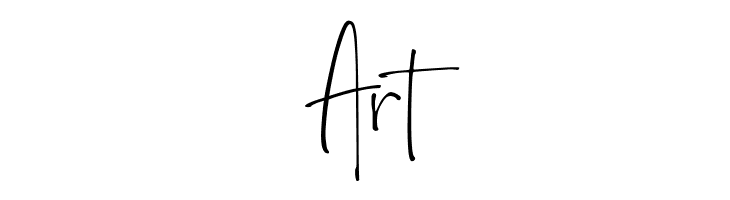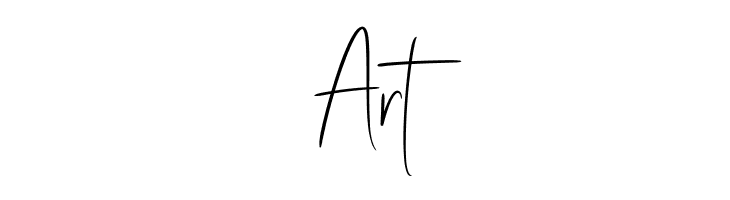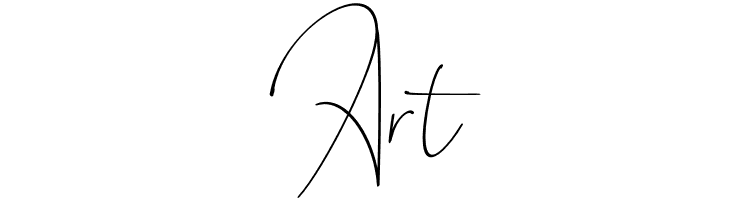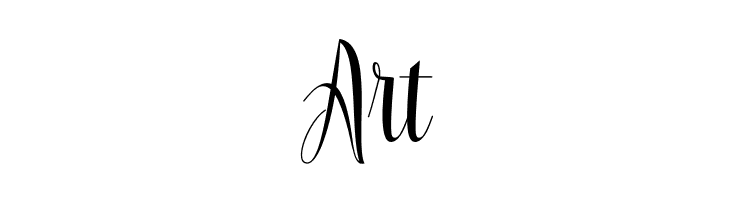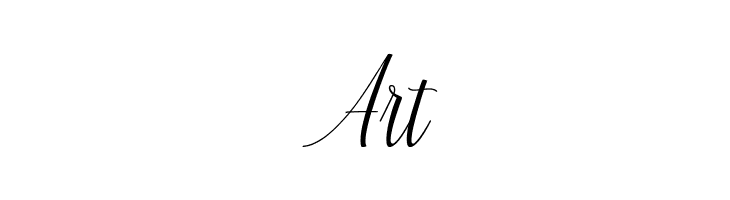
( Ryan Williamson )
An ultra-thin, modern font with elegant, clean lines.
( Sabrina Schleiger - www.sabrinaschleiger.com )
A tall, narrow font with a playful, whimsical style.
( Sholeha Anata )
A lively and elegant script font with flowing, cursive letterforms.
( Sholeha Anata )
A cursive script font with elegant loops and fluid connections.
( Solidtype - bit.ly/2OxZn2V )
A stylish, handwritten font with elongated, flowing letterforms.
( Sronstudio - Yusron Billah )
A fluid and elegant script font with graceful, flowing letterforms.
( Studio Typo - www.studiotypo.com )
A sleek, elongated, and italic font with thin strokes and a modern aesthetic.
( Studiorazi - Muhammad Razi - creativemarket.com/StudioRz )
An elegant script font with graceful curves and decorative flourishes.
( Studiorazi - Muhammad Razi - creativemarket.com/StudioRz )
A stylish and elegant script typeface with graceful curves and fluid connections.
( Syahputra - creativemarket.com/Bexxtype )
A flowing, cursive font with elegant loops and swashes.